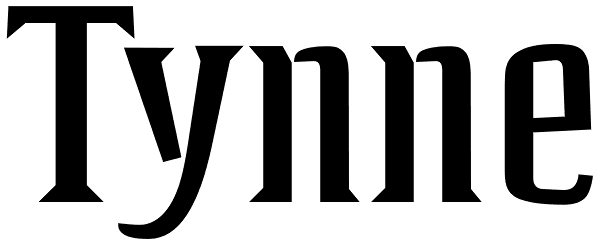
Tynne
OHG is pleased to announce the release of Tynne 2.0, now with two new out-line, drop-shade fonts which work independently as attractive display faces in their own right or one layer of a two layer, chromatic typeface. In addition, kerning and letter...